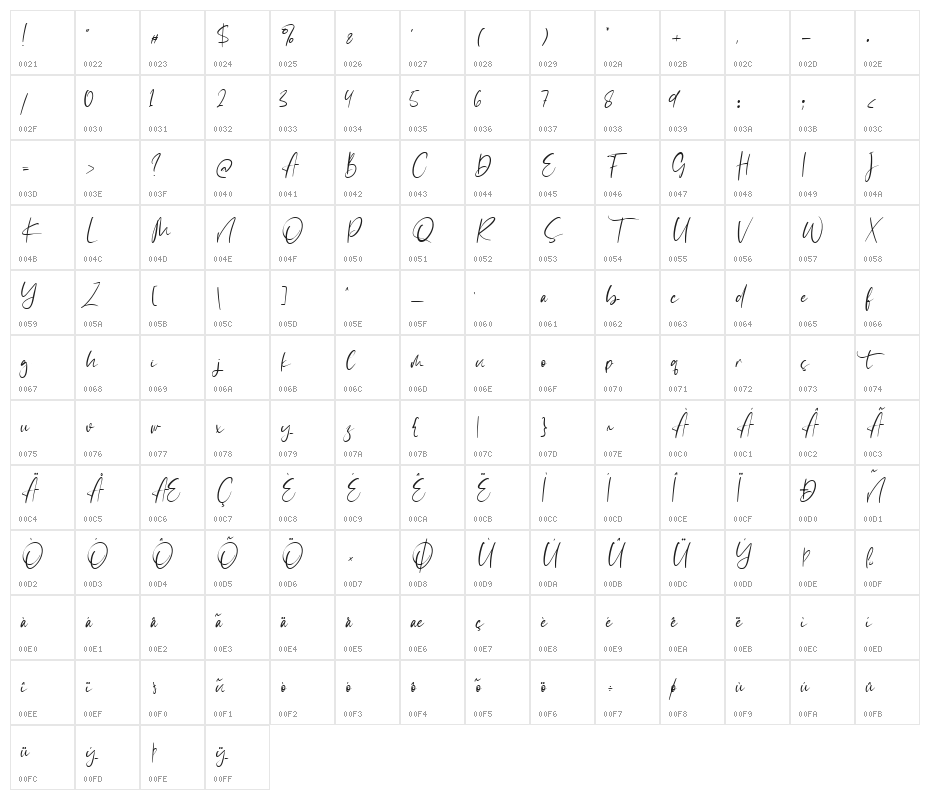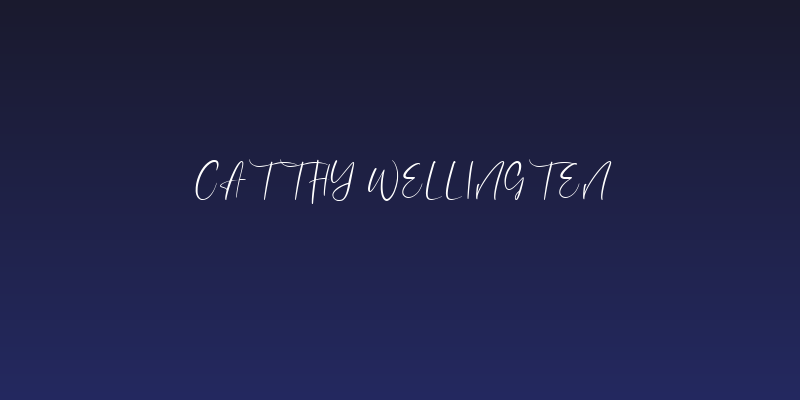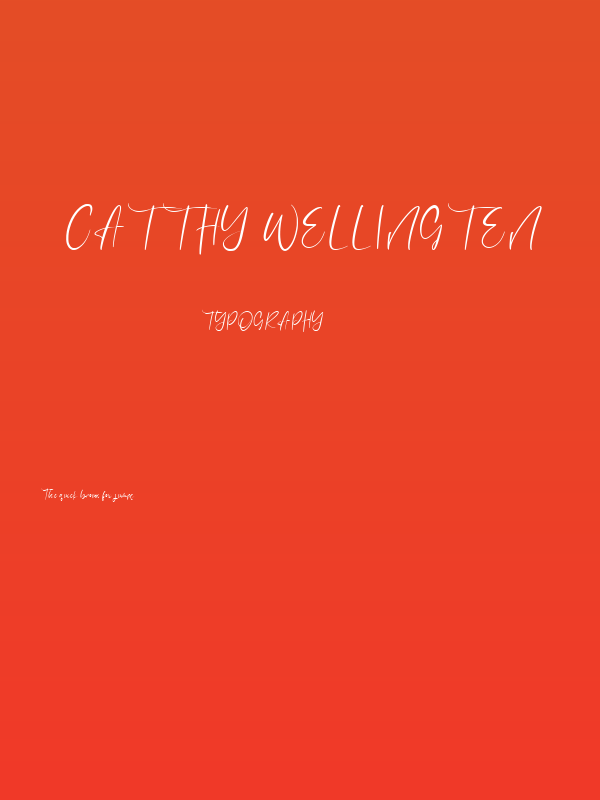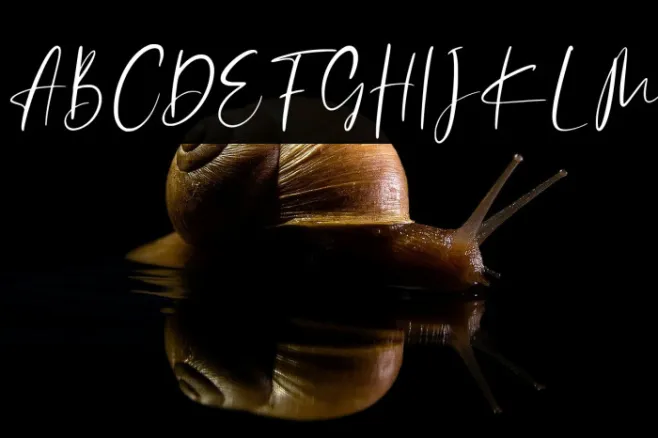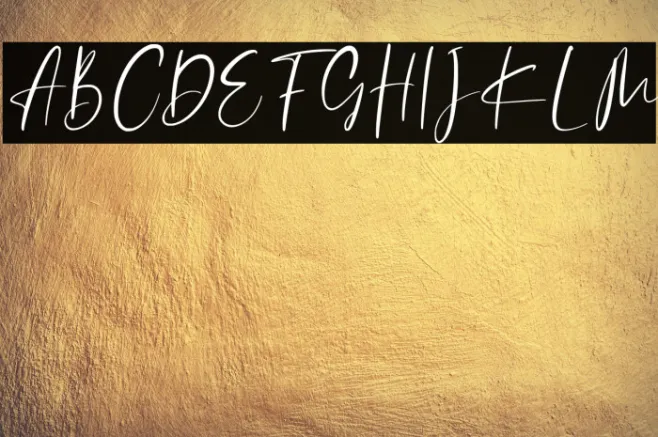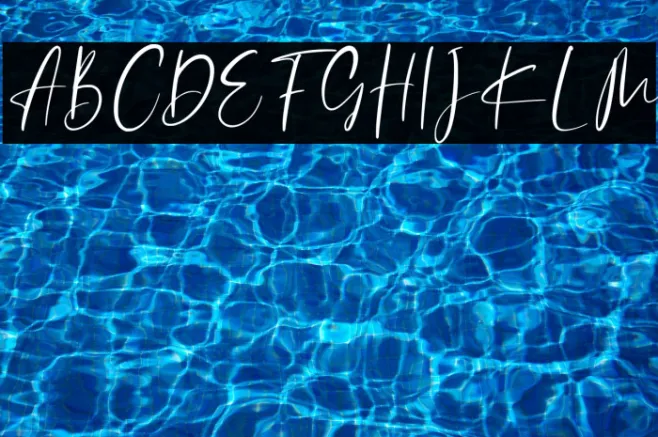
Catthy Wellingten Font
Catthy Wellingten Description
This font features a lively and expressive handwritten style, characterized by its fluid and dynamic strokes. The uppercase letters are bold and slightly slanted, giving a sense of movement and elegance. The lowercase letters maintain a consistent flow, with some letters featuring unique loops and swirls that add a playful touch. The numbers are clear and legible, matching the overall style of the letters. Special characters are well-integrated, maintaining the same energetic and whimsical feel. This font is perfect for projects that require a personal and artistic touch.